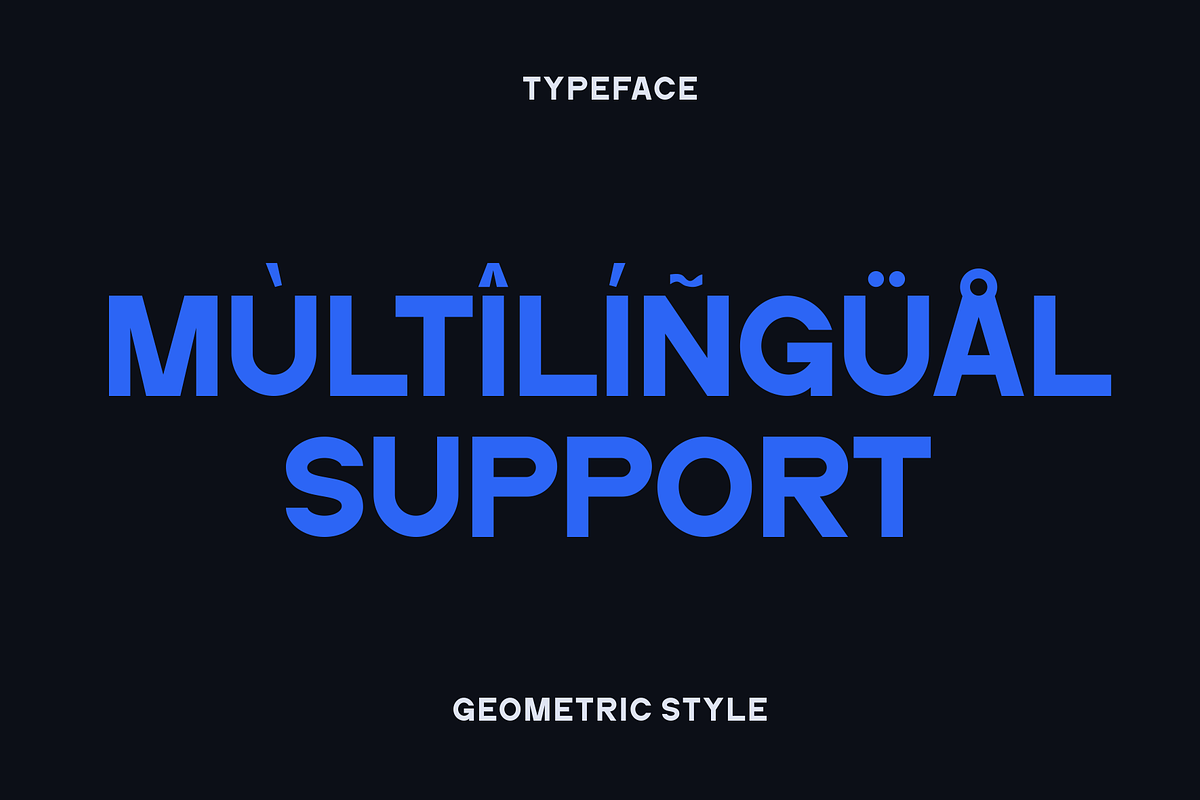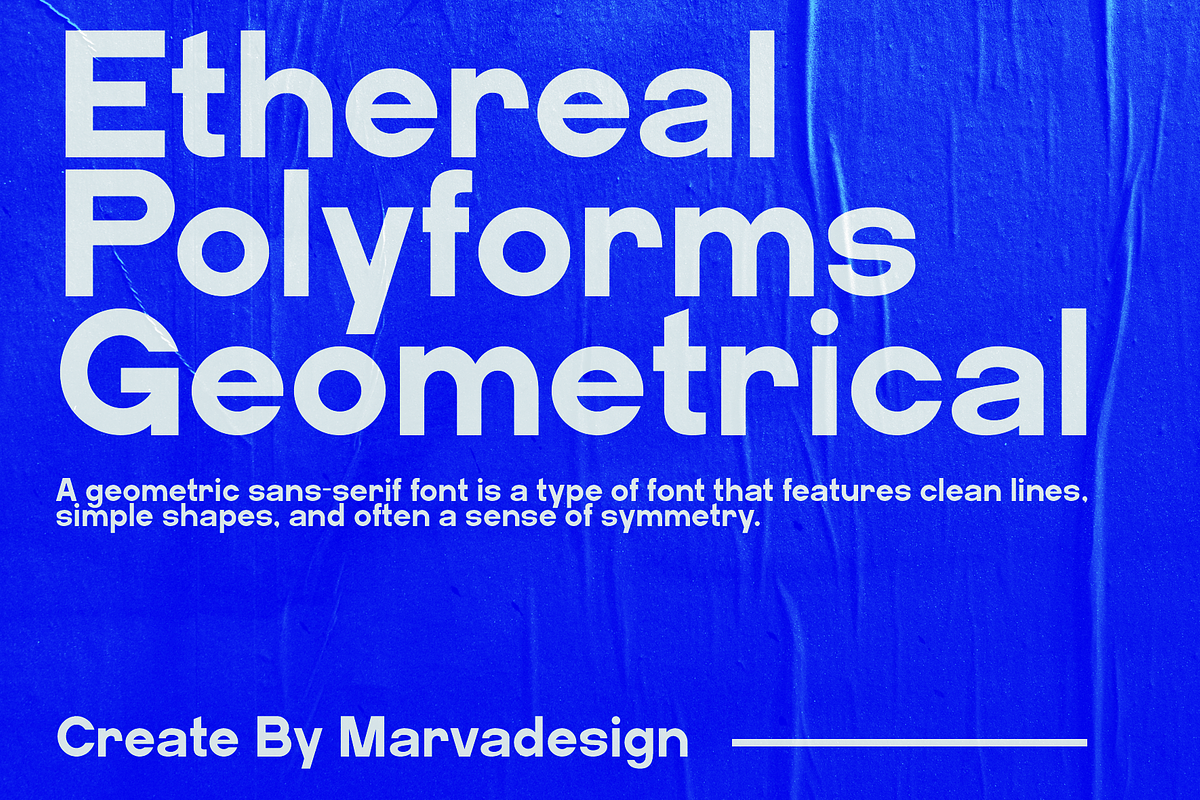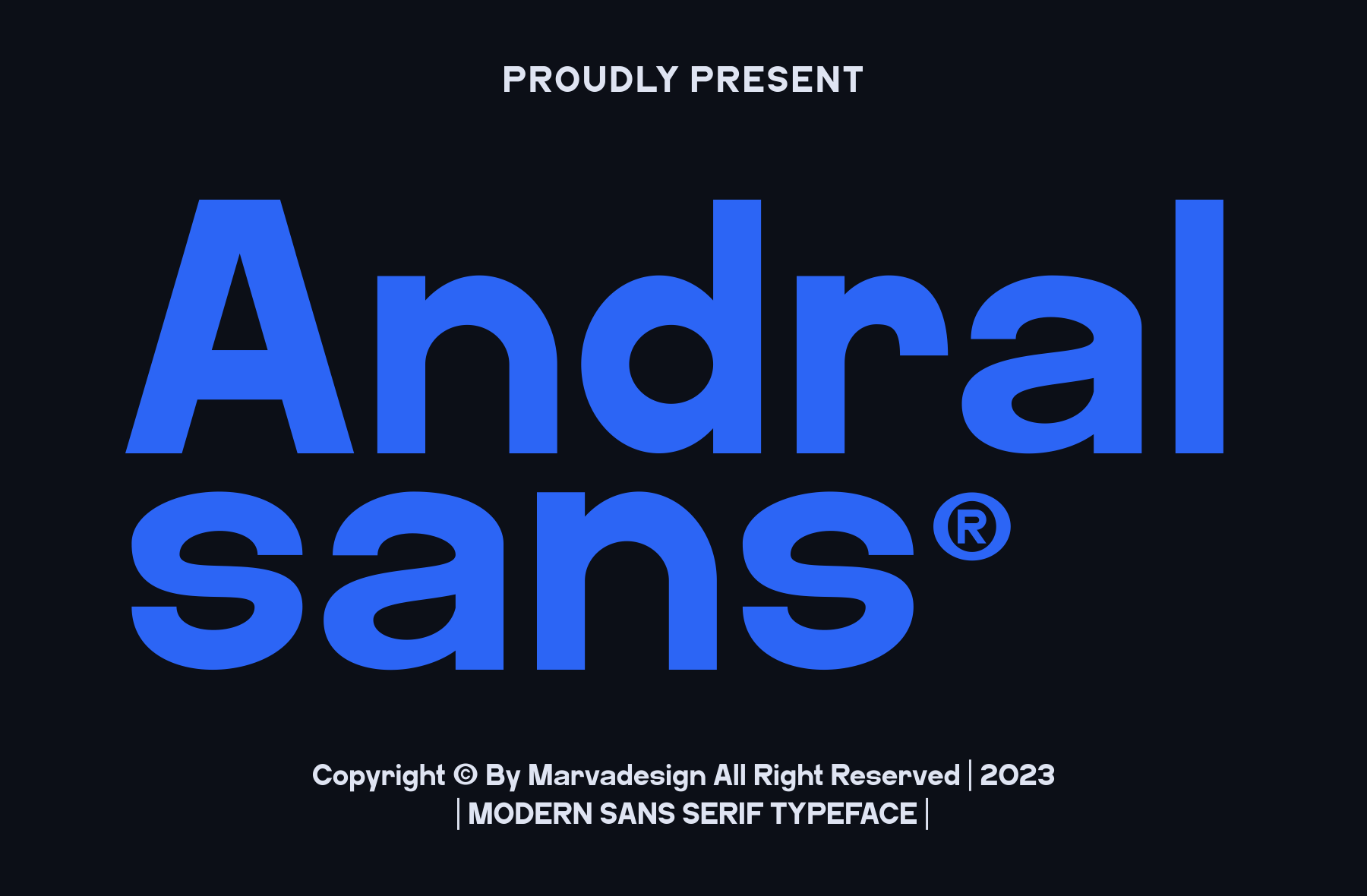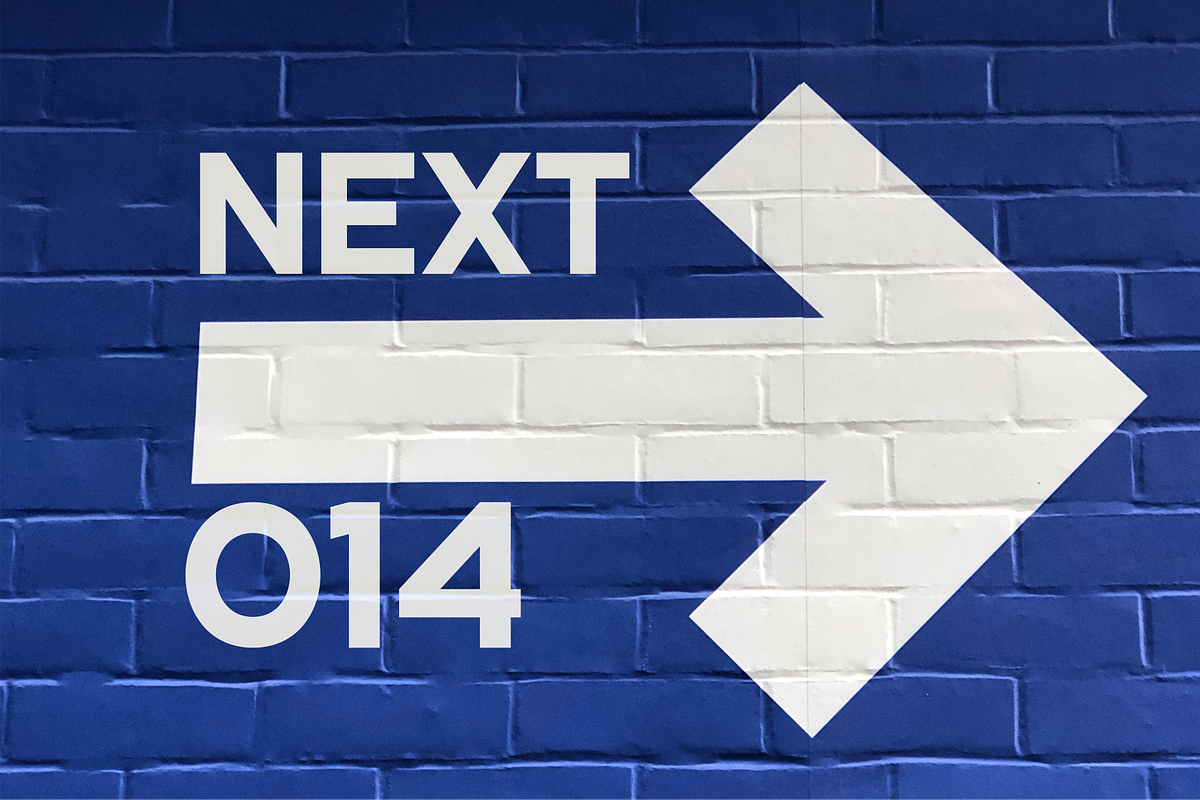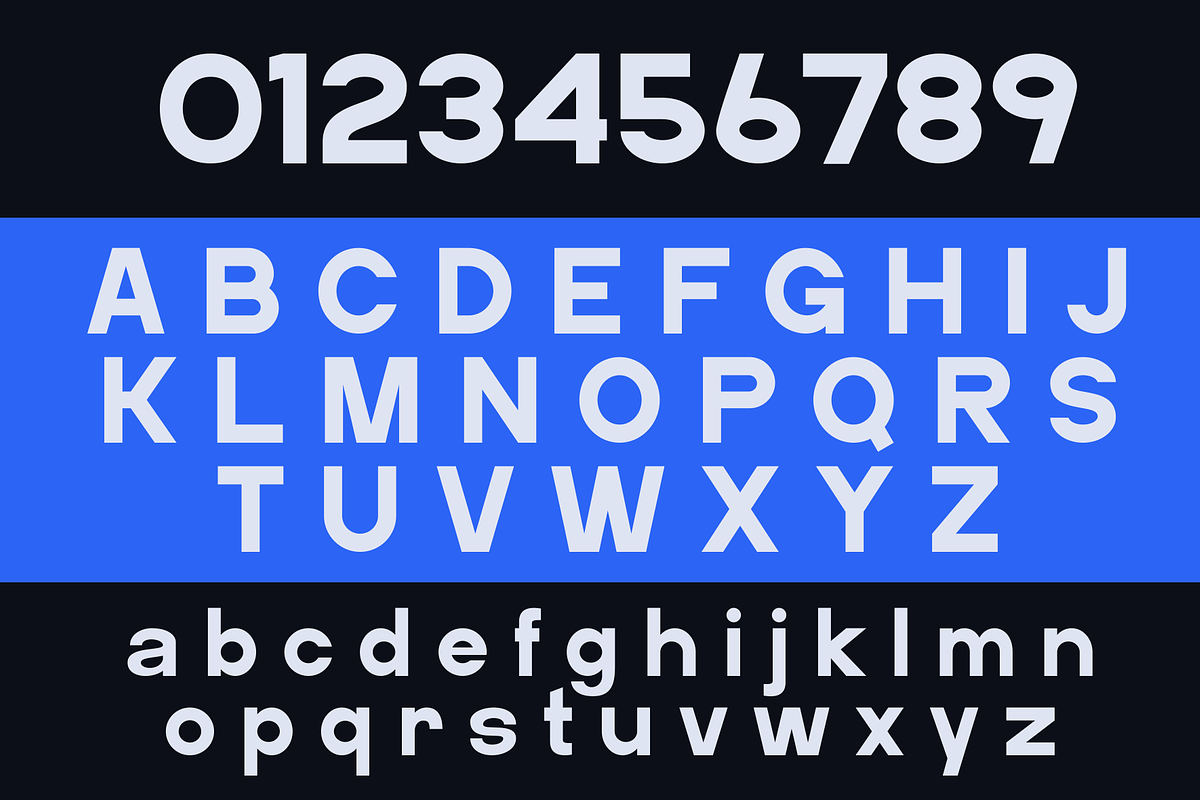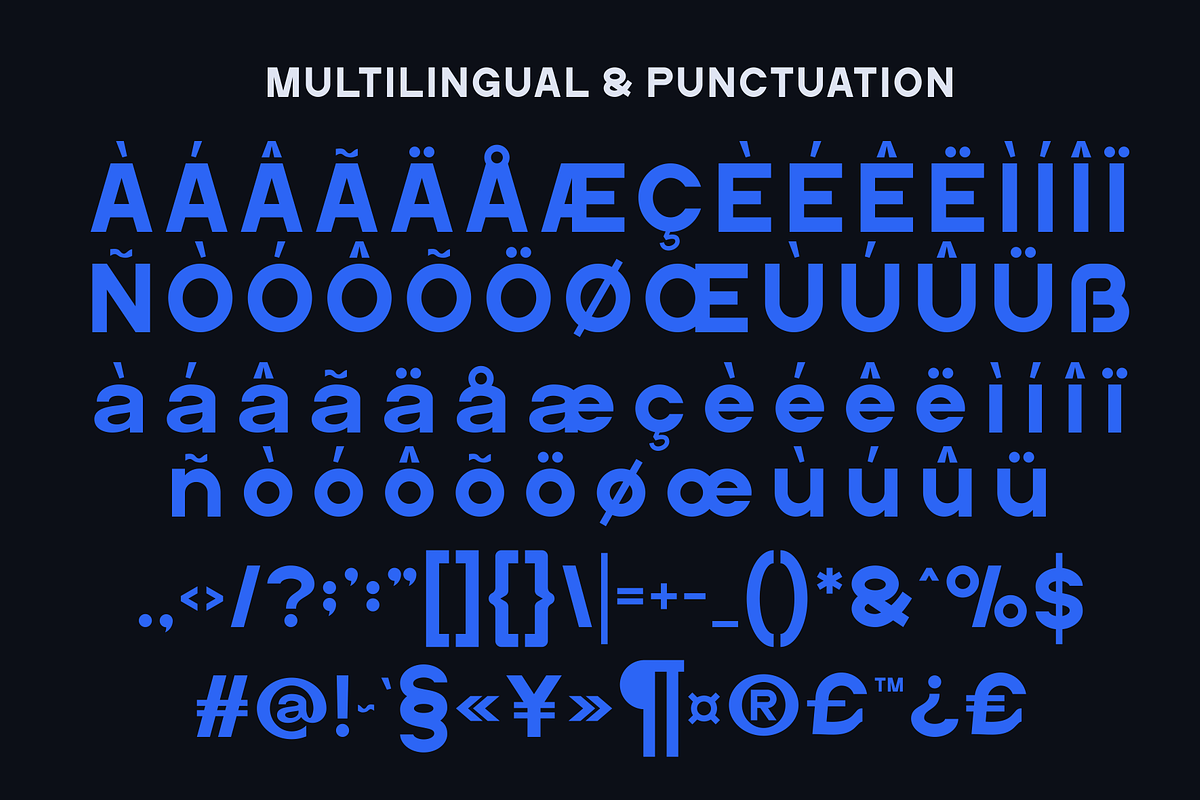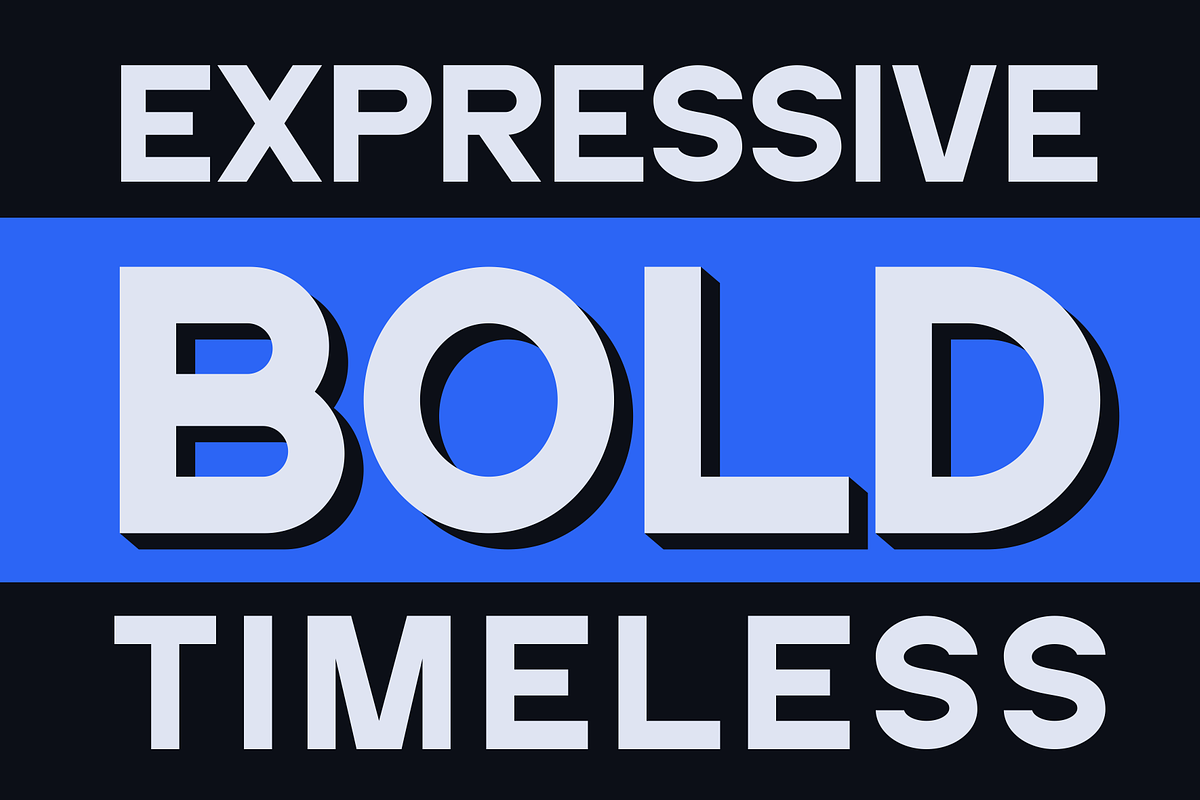
Andral - A Modern Sans Serif Font
Introducing our new product Andral Font - Modern Font is a bold and authentic display font. The font is suitable for any branding project like logo, Template Design, Product and many more. outstanding in a wide range of contexts.